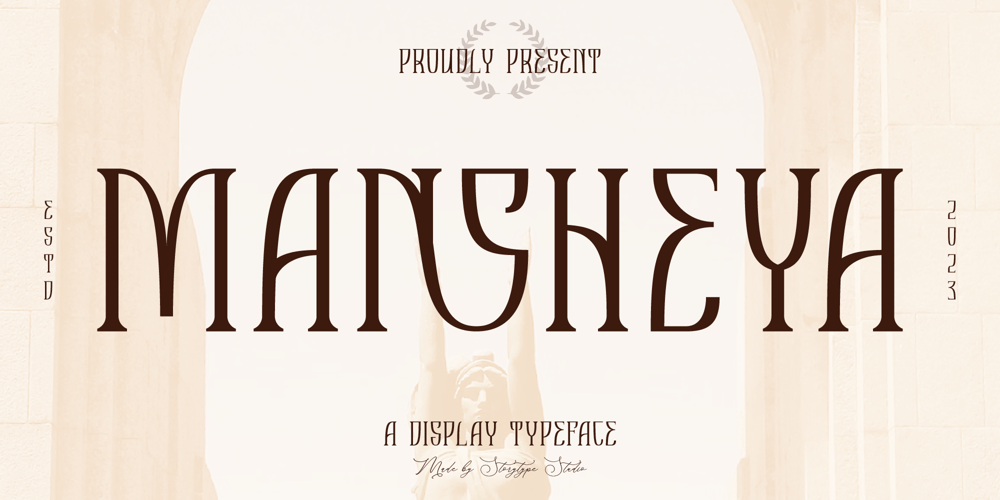
Mansheya Font Family was designed by Heru Utama Putra and published by Letterena Studios. Mansheya contains 2 styles and family package options. Mansheya is a serif modern and classic typeface that its own unique style & modern look.This typeface is perfect for an elegant & luxury logo, book or movie title design, fashion brand, magazine, clothes, lettering, quotes, and so much more.–Uppercase